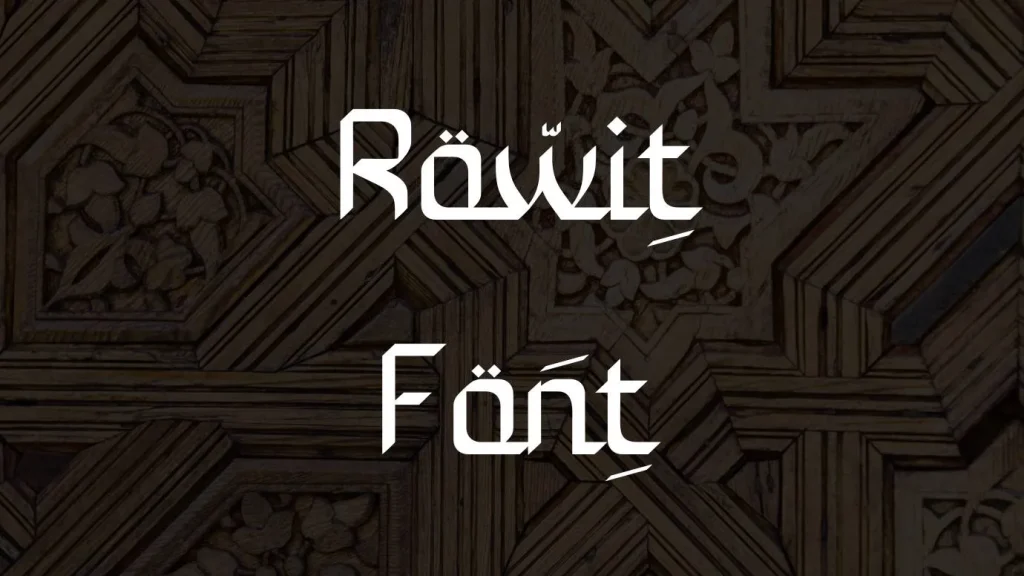
Presenting the premium Arabic-style font Rowit. This display adds a luxurious and prestigious touch to your designs.
With this innovative typeface, you can effortlessly achieve the desired look and feel for any scenario. This typeface set, made with extreme care and has hundreds of glyphs, is the finest option for adding harmony to your designs.
What other fonts resemble Rowit Font?
The ideal replacement for this lovely typeface is the Naxmos font, which also offers replacements for the characters and corners.
Where we can use the Rowit typeface?
Despite the conventional typography, the fundamental components are excellent. Perfect for logos, invites, magazine layouts, and other artwork.